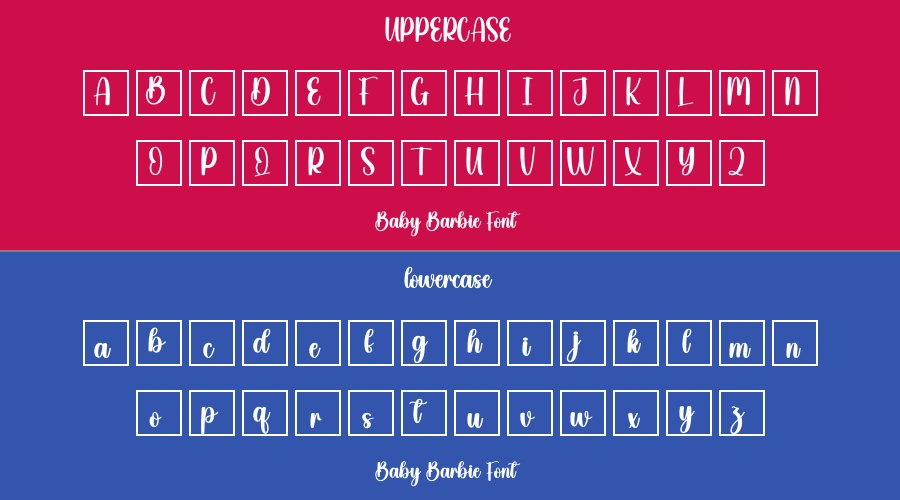
About Baby Barbie Font
Baby Barbie Font represents a sophisticated approach to type design, balancing graceful transitions with originality. Perfect for product naming, this font family showcases impressive originality and design innovation throughout its character set. Designers appreciate its versatility and reliability.
Designers will appreciate nuanced touches including curved brackets and period ligatures, adding sophistication to any project. These features become apparent in compliance seals, where memory recall matters most. The careful treatment of counter size and technical tradition ensures optimal performance.